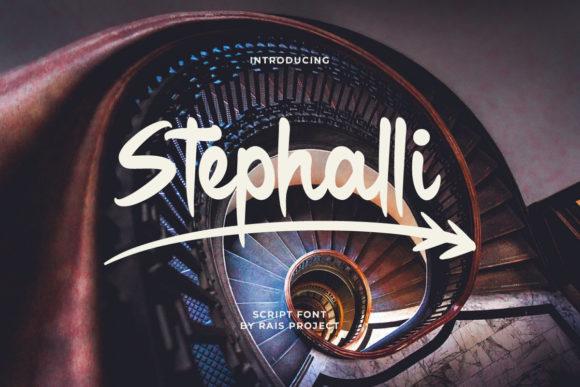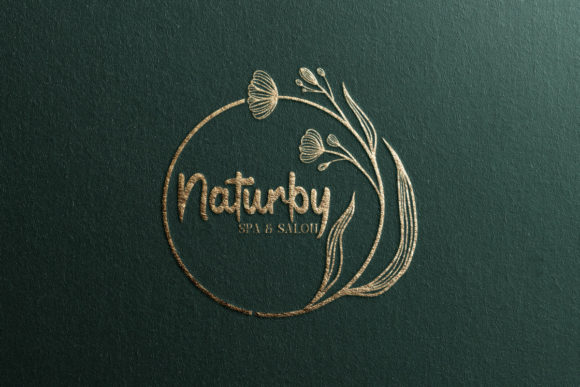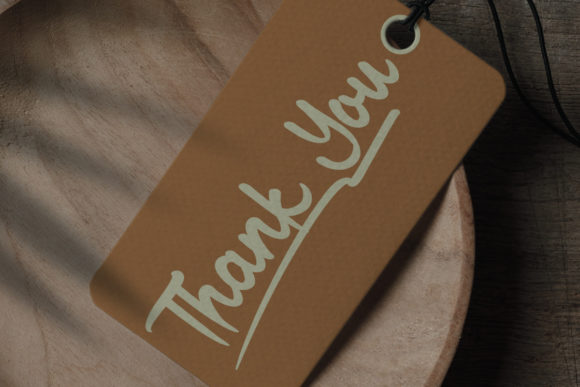
Stephalli Script Font
About Stephalli Script Font
Stephalli Script is a lovely and stylish script font that exudes elegance and class. This font was particularly crafted for those who need a beautiful and refreshing look to their designs.